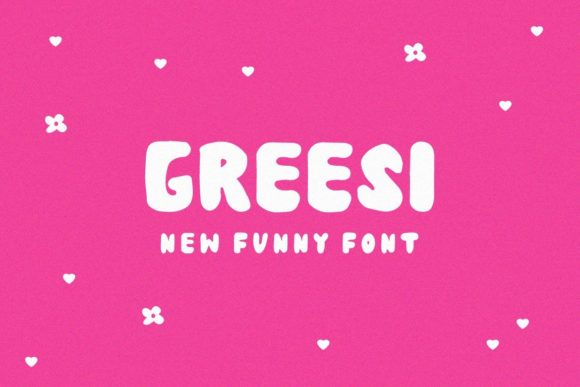
Greesi Font
Introducing Greesi, the Display Font That Will Make Your Designs Sizzle!
Picture this: you're strolling through a bustling farmers market, the air thick with the tantalizing aromas of fresh produce and the buzz of happy shoppers. Amidst the vibrant stalls and cheerful chatter, your eyes catch a glimpse of a sign that simply radiates joy. Its playful letters dance across the page, each one a little masterpiece of whimsy. That, my friend, is the magical power of Greesi, the display font that will transform your designs into market-fresh masterpieces.
Crafted by the talented hands of alonkelakon, Greesi is a font that exudes warmth, friendliness, and a touch of irresistible charm. Its cute and bubbly curves evoke the innocent joy of childhood, making it the perfect choice for designs that aim to capture the hearts of young and old alike.
But don't let its playful demeanor fool you, Greesi is a versatile chameleon that can adapt to any creative challenge you throw its way. Whether you're designing a whimsical logo for a children's toy store, creating eye-catching posters for a carnival, or simply adding a touch of fun to your social media posts, Greesi will rise to the occasion with effortless style.
Its charming personality makes it a natural fit for projects that call for a touch of lightheartedness and whimsy. Imagine your brand name emblazoned in Greesi's cheerful letters, instantly conveying a sense of warmth and approachability to your customers. Picture your social media feed adorned with Greesi-infused quotes, spreading happiness and inspiration to your followers. The possibilities are endless!
But Greesi's versatility extends far beyond the realm of playfulness. Its robust character and crisp lines also make it an excellent choice for designs that demand a touch of professionalism. From elegant book covers that exude sophistication to sleek posters that command attention, Greesi has the versatility to elevate any project to new heights.
So, if you're ready to inject a dose of joy and creativity into your designs, look no further than Greesi. Its playful spirit, coupled with its remarkable adaptability, makes it the perfect font for designers who dare to be different. Embrace the magic of Greesi today and let your designs bloom with happiness!